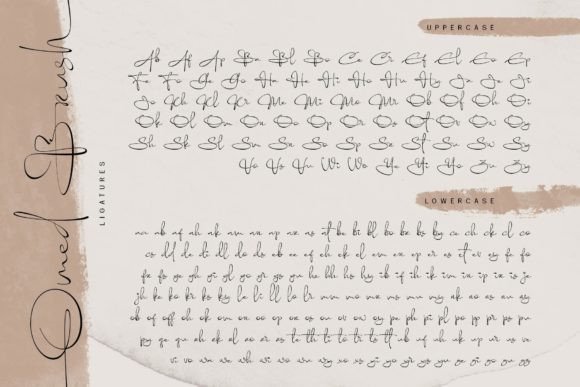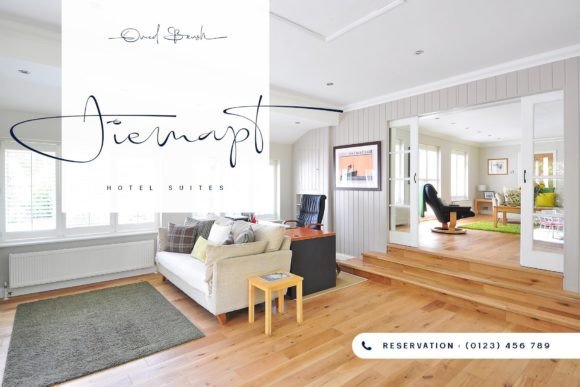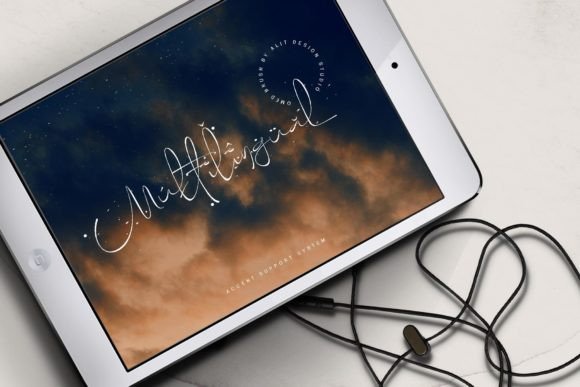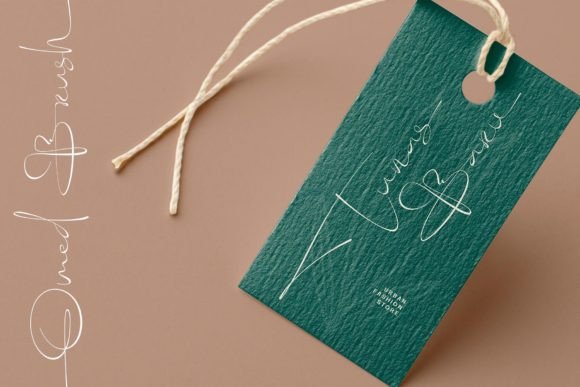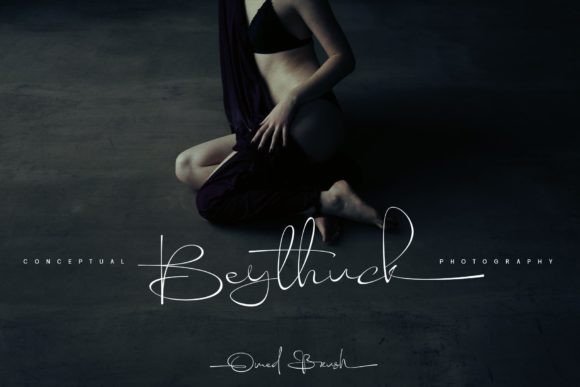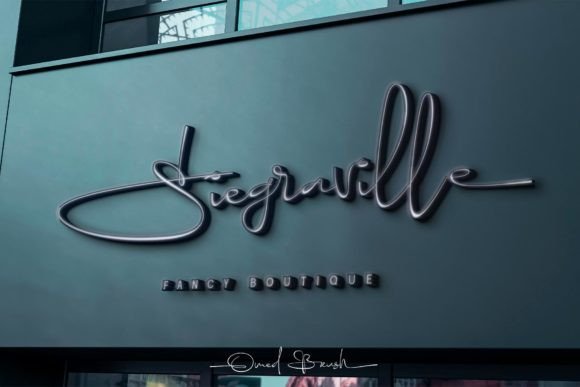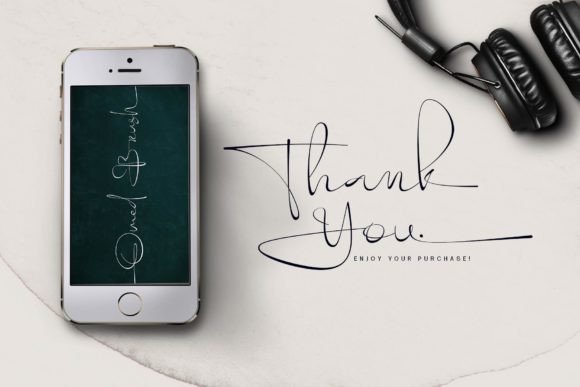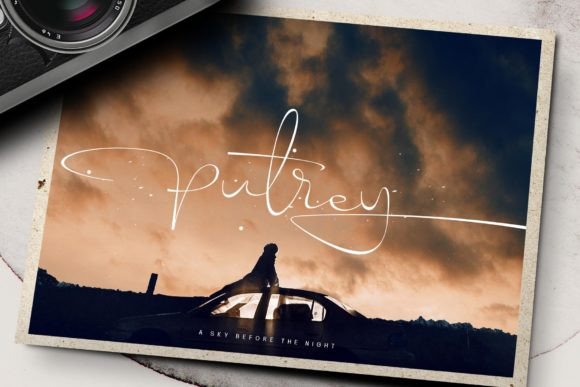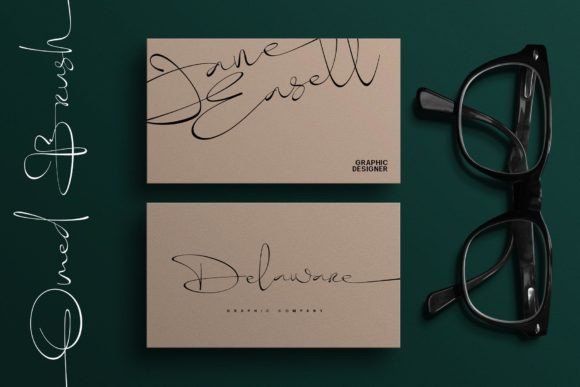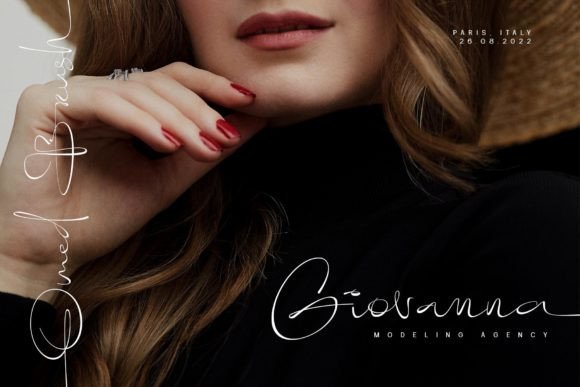
Omed Brush Font
About Omed Brush Font
“Omed Brush” is a cool and modern handwritten script font that brings a contemporary and stylish vibe to your design projects. When you incorporate this font into your projects, you can do so with confidence, knowing that it will deliver amazing results.
The appeal of “Omed Brush” lies in its ability to infuse your projects with a sense of modernity and flair. Its script style exudes a cool and fashionable aesthetic, making it an excellent addition to a variety of creative endeavors.
Whether you’re working on branding, posters, quotes, social media graphics, logos, or any project that requires a cool and modern touch, “Omed Brush” is the typeface that can bring your ideas to life.
In the world of design, staying on trend and creating visually striking outcomes is crucial, and “Omed Brush” excels in this regard. It ensures that your projects not only look contemporary but also convey a feeling of style and creativity, leaving an amazing impact on your audience.
Furthermore, the fact that “Omed Brush” is PUA encoded means that you can easily access all of its amazing glyphs and ligatures, enhancing the versatility and creative potential of this font.
In summary, “Omed Brush” is more than just a font; it’s a creative tool that adds a sense of modernity and style to your work. Its cool and modern character make it suitable for a wide range of projects, allowing you to create designs that are not only visually captivating but also exude an air of contemporary flair and creativity. Embrace “Omed Brush” with confidence and watch as it amazes you with its cool and modern style, elevating your creative endeavors to a whole new level.